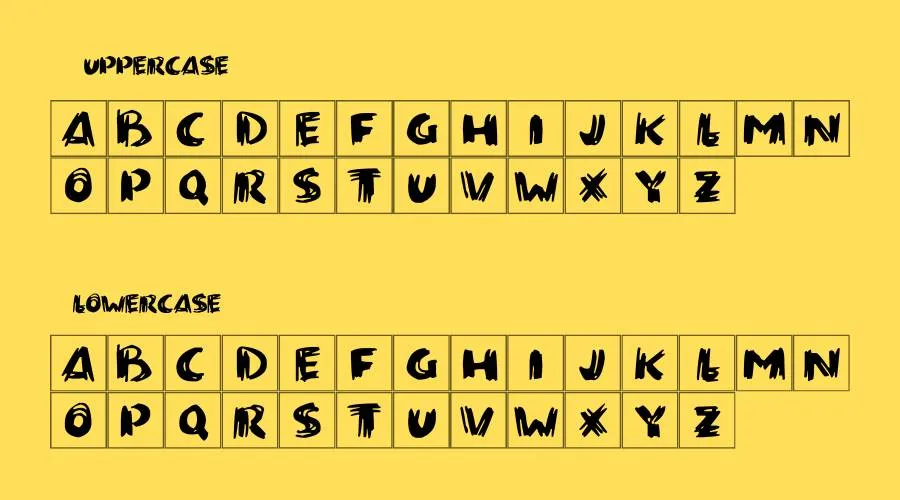
About Paintbrush Font
The Paintbrush Font is an elegant and interesting typeface that has been developed by an expert typographic designer known as the name of Darrell Flood. This font is perfect for various kinds of projects and tasks, it has both OTF and TTF and is free for all your projects.
This font is bold and looks like a hand-drawn texture that includes a full set of lowercase and uppercase letters, numerals, and punctuation. This font family comes in multiple weights, allowing you to find the exact variation that you need for your project.